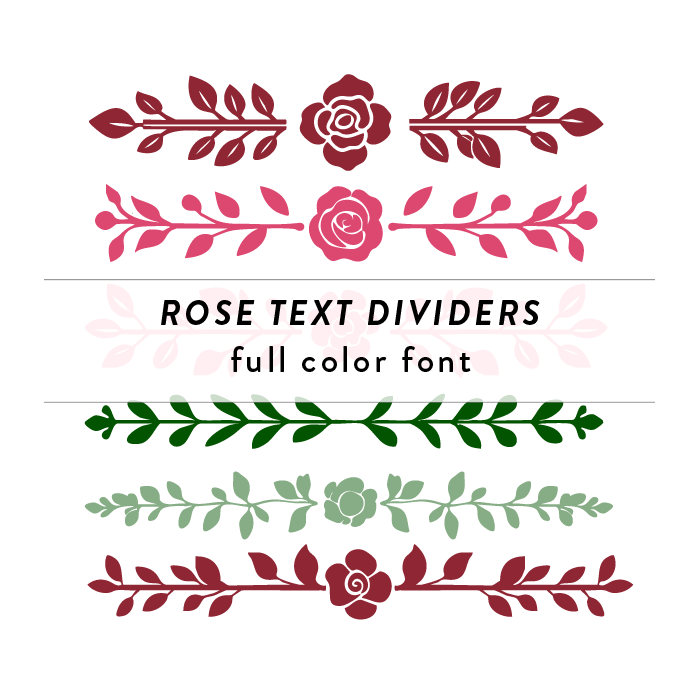
Color fonts will appear black if not used in a compatible program. This font type should be used with Silhouette Studio to appear in color. These cute text dividers are perfect for a variety of spring, summer, easter, Mother's Day projects and home decor.